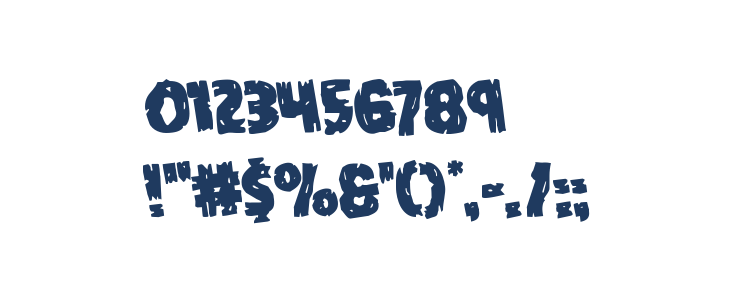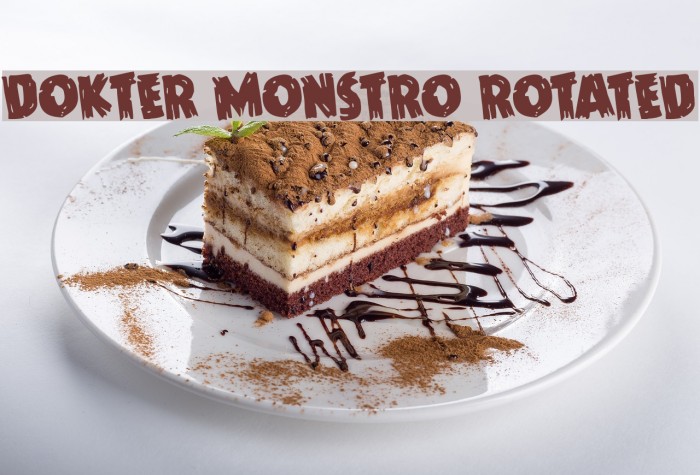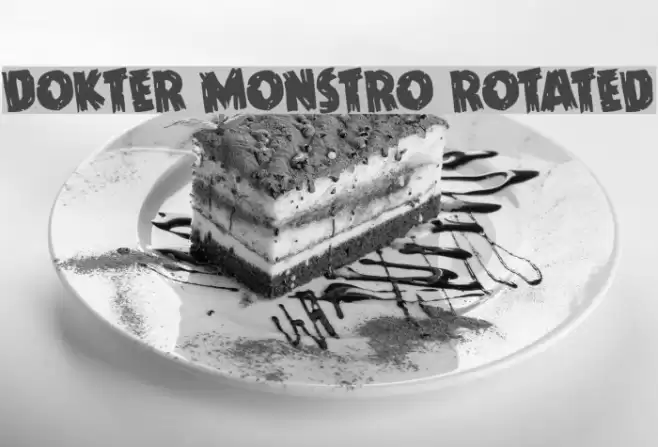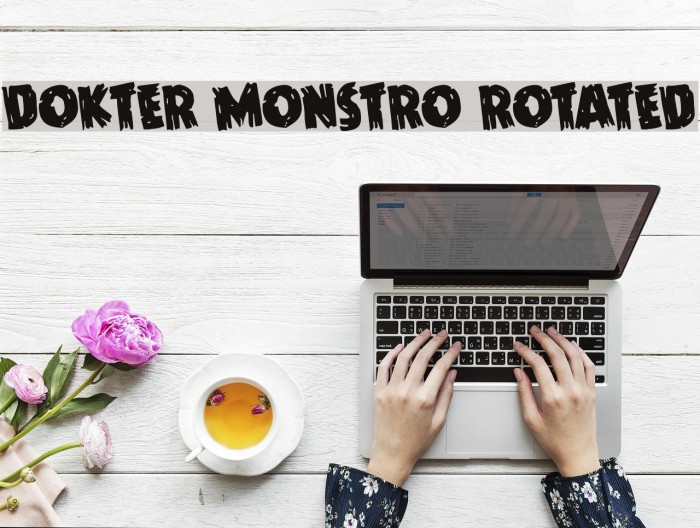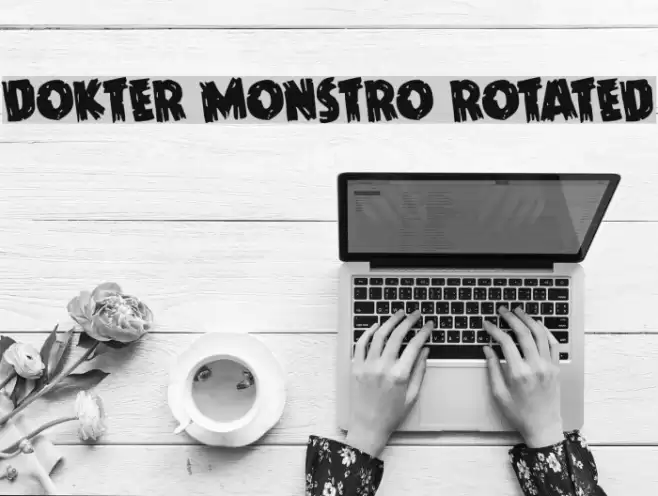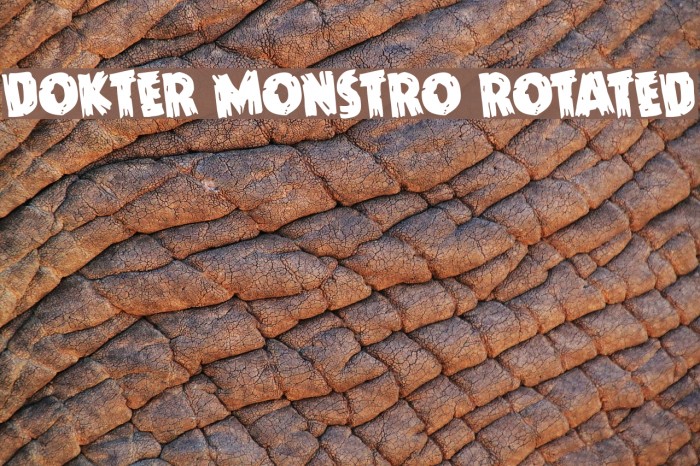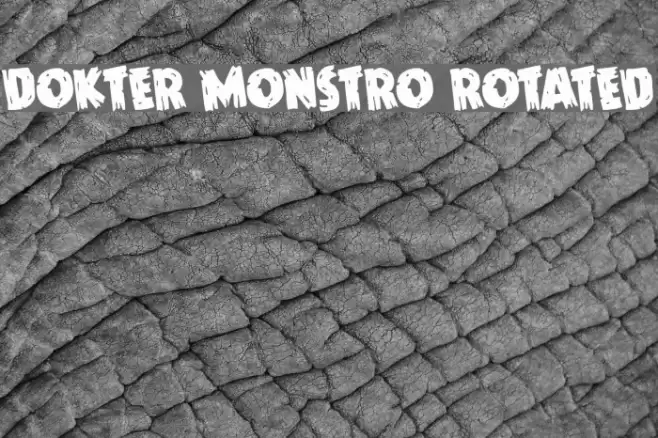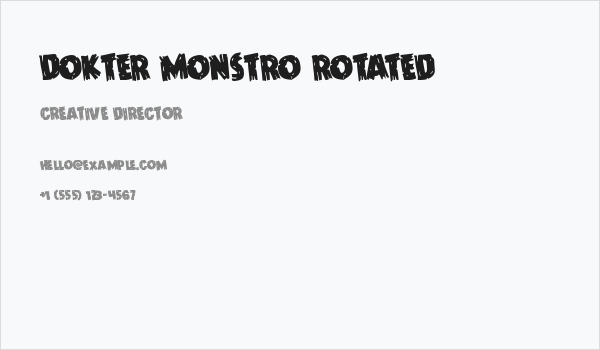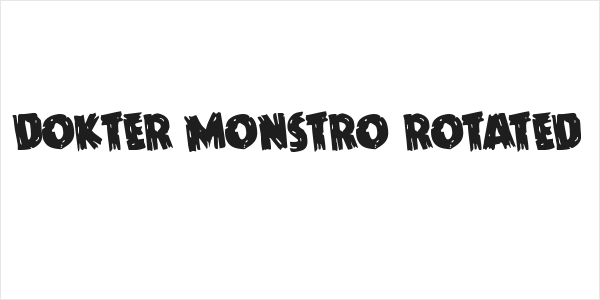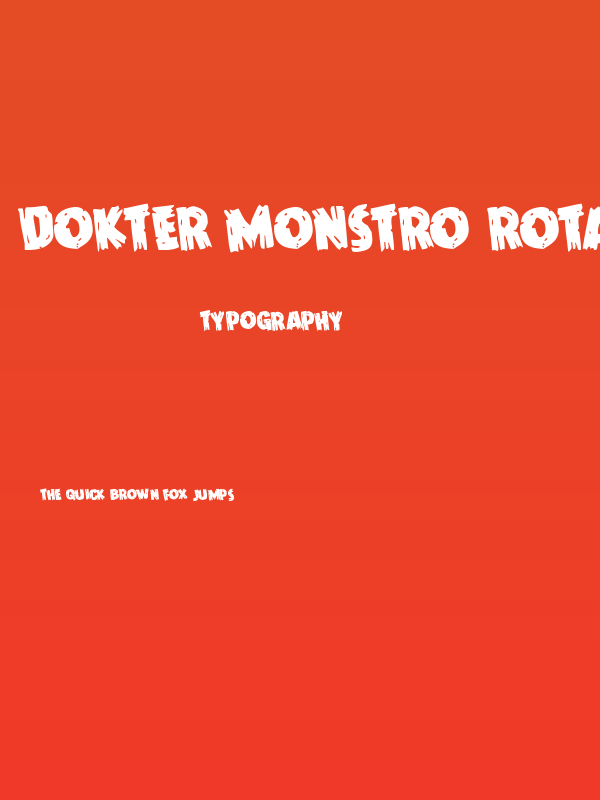
Dokter Monstro Rotated Font
Dokter Monstro Rotated Description
This font features a bold and dynamic style with a distinctly jagged and irregular edge, giving it a chaotic and energetic appearance. The characters are heavily stylized with thick strokes and uneven contours, creating a sense of movement and intensity. The uppercase and lowercase letters maintain a consistent weight, while the numbers and special characters follow the same rugged design. This font is ideal for projects that require a strong visual impact and a sense of urgency or excitement.
| Proposed Projects | Perfect for horror-themed posters, edgy branding, music album covers, and eye-catching headlines. |